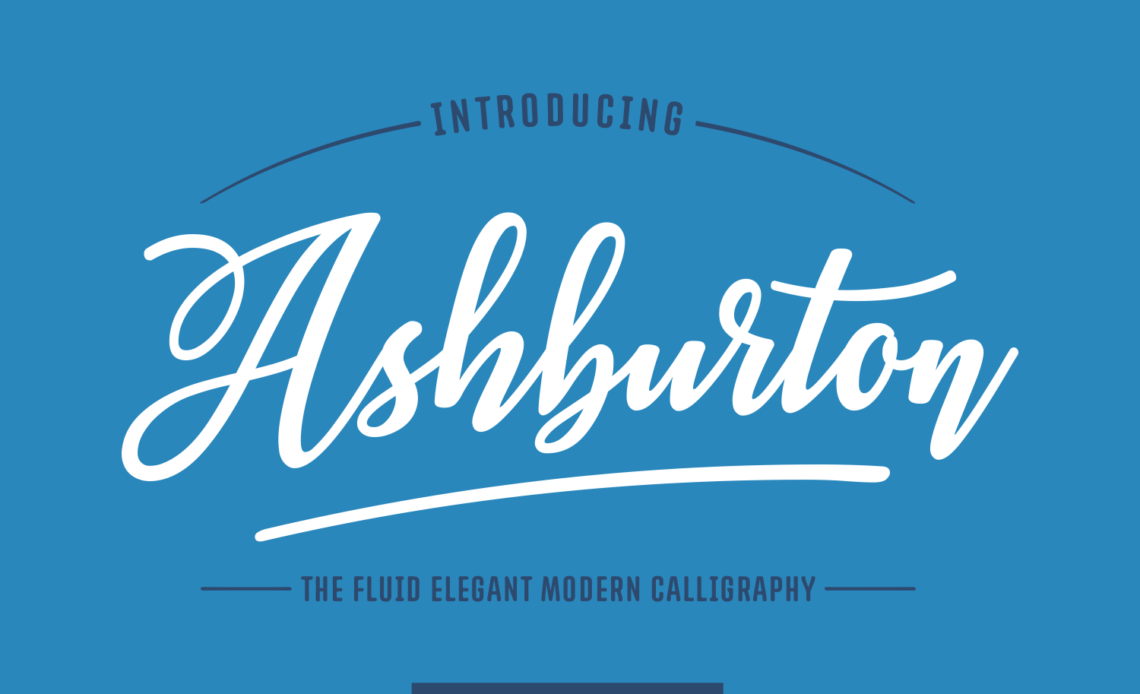
Embark on a remarkable typographic journey with Ashburton Font, a true masterpiece designed to add a touch of creativity and uniqueness to your digital creations.
Enter the world of Ashburton Font, a script font that exudes both sophistication and playfulness. This creation from The Traveling Fox is a visual delight, offering a captivating blend of sportiness, nostalgia, and casual charm.
With Ashburton Font, your designs will radiate a sense of timeless elegance and effortless cool. Its carefully crafted characters dance across the page, evoking a sense of wonder and intrigue.
Unleash your artistic vision and let your imagination soar. Whether you're designing logos, posters, branding, or simply adding a personal touch to your social media posts, Ashburton Font is the perfect companion.
Elevate your projects to new heights with Ashburton Font. Its versatility knows no bounds, effortlessly adapting to a wide range of design styles and themes. From elegant wedding invitations to eye-catching flyers, this font delivers exceptional results every time.